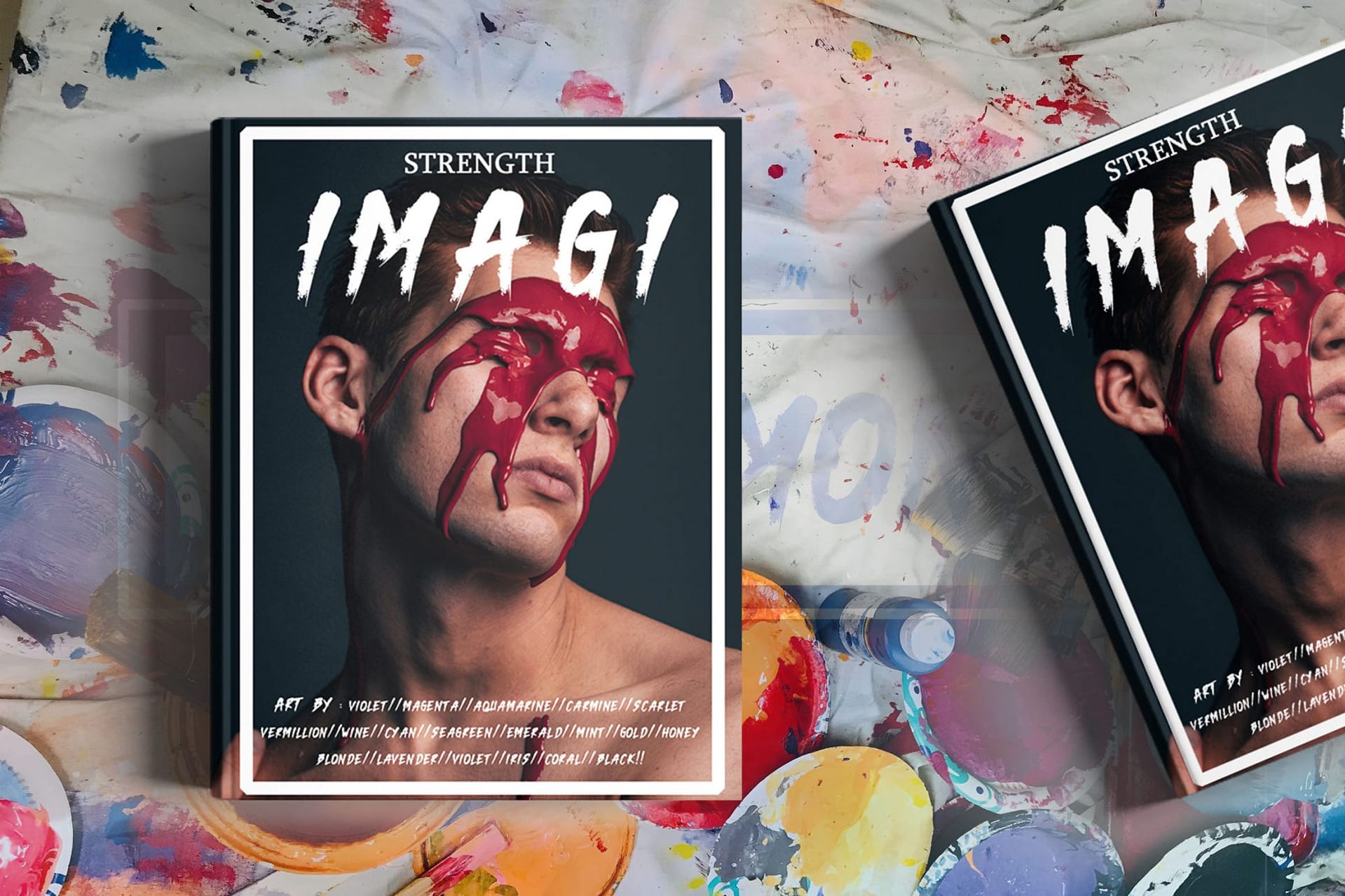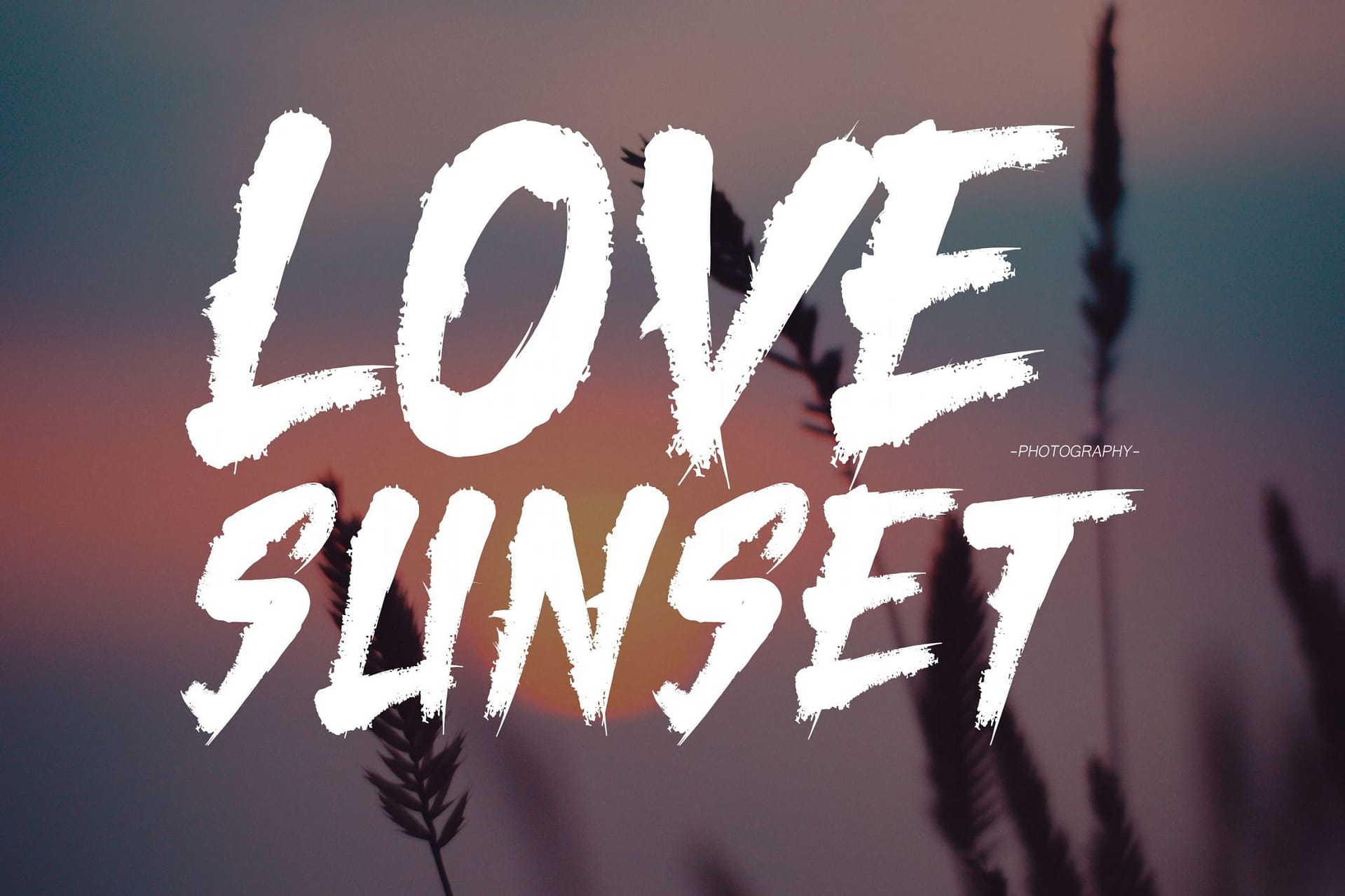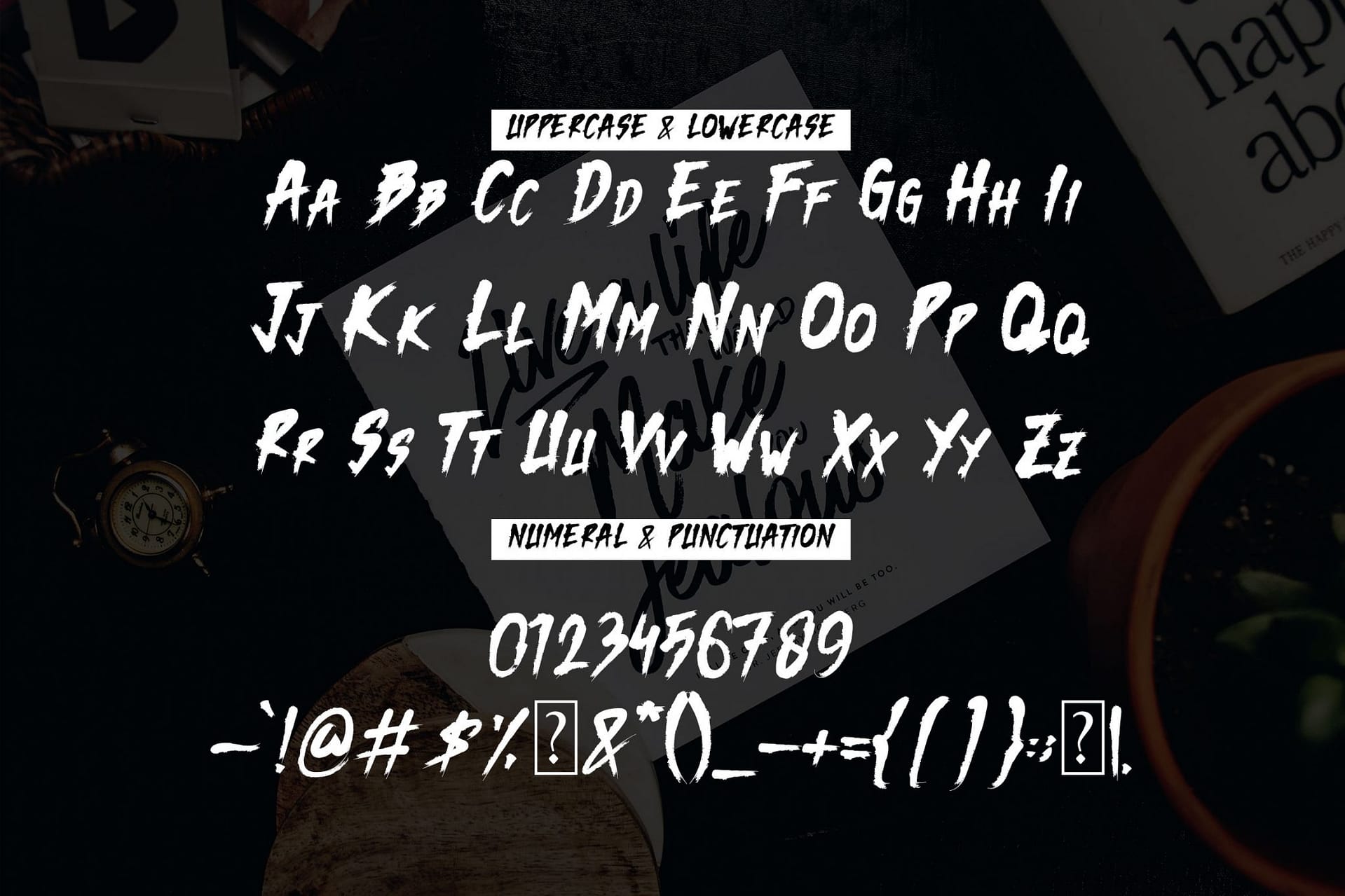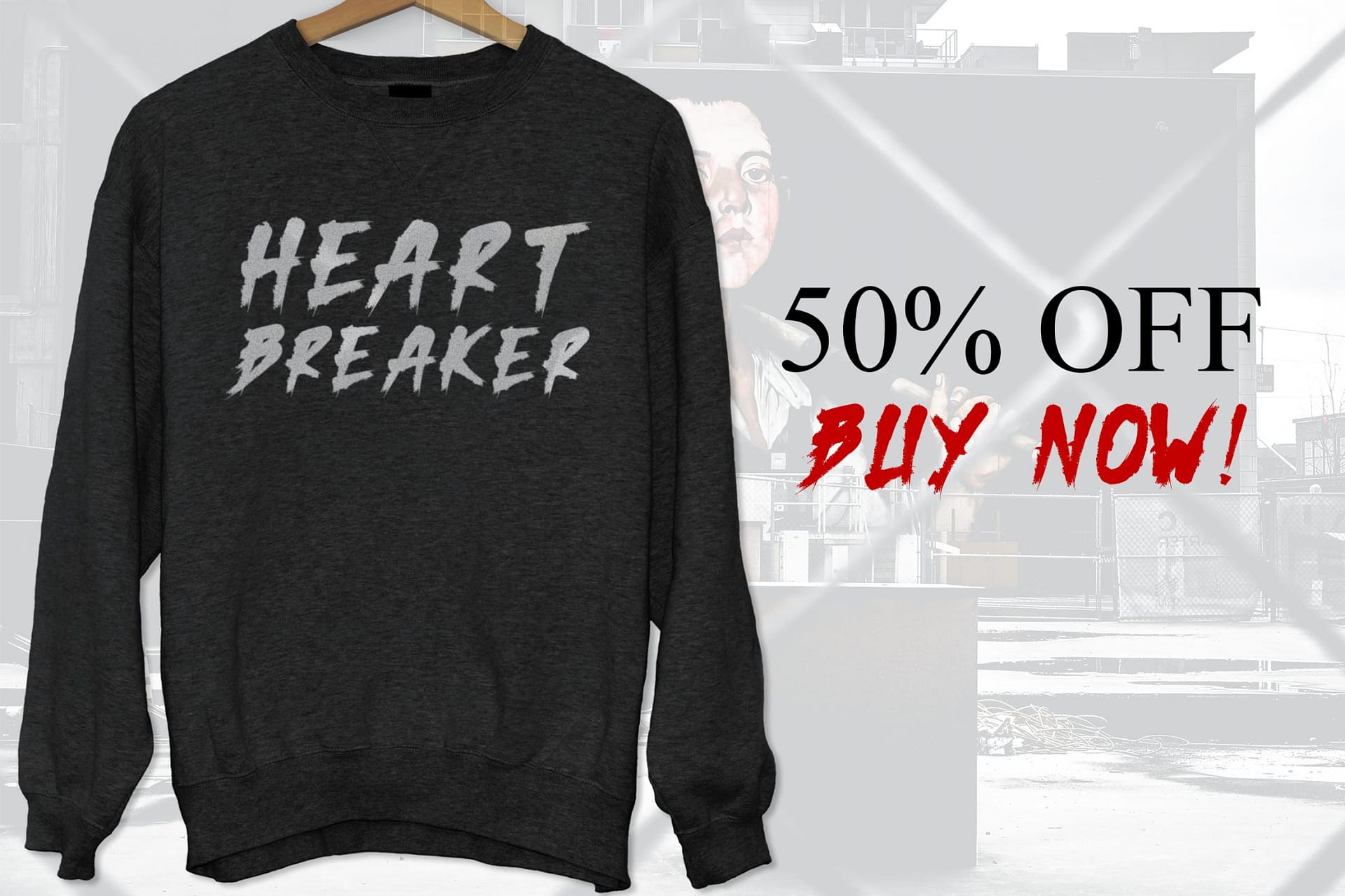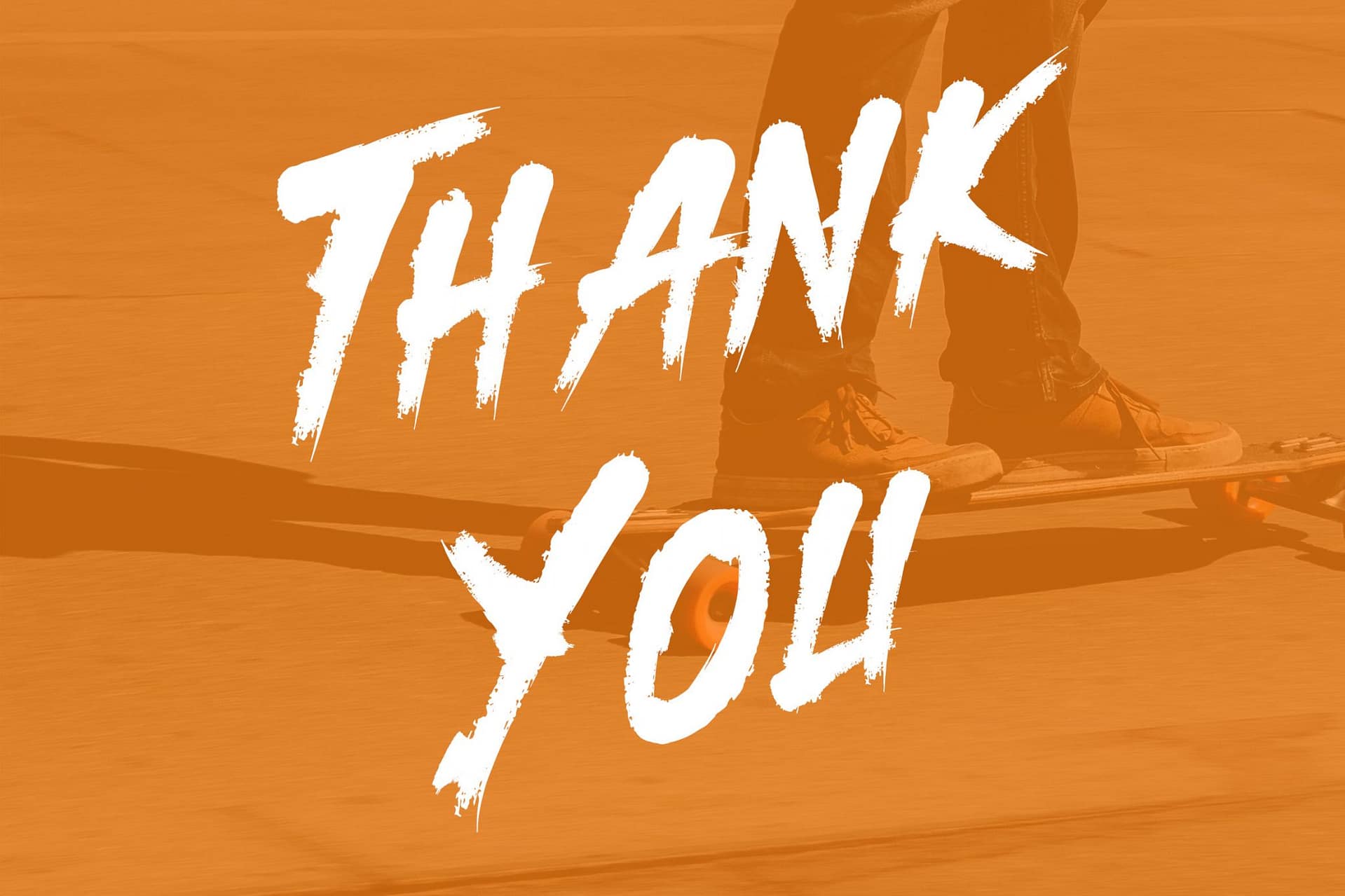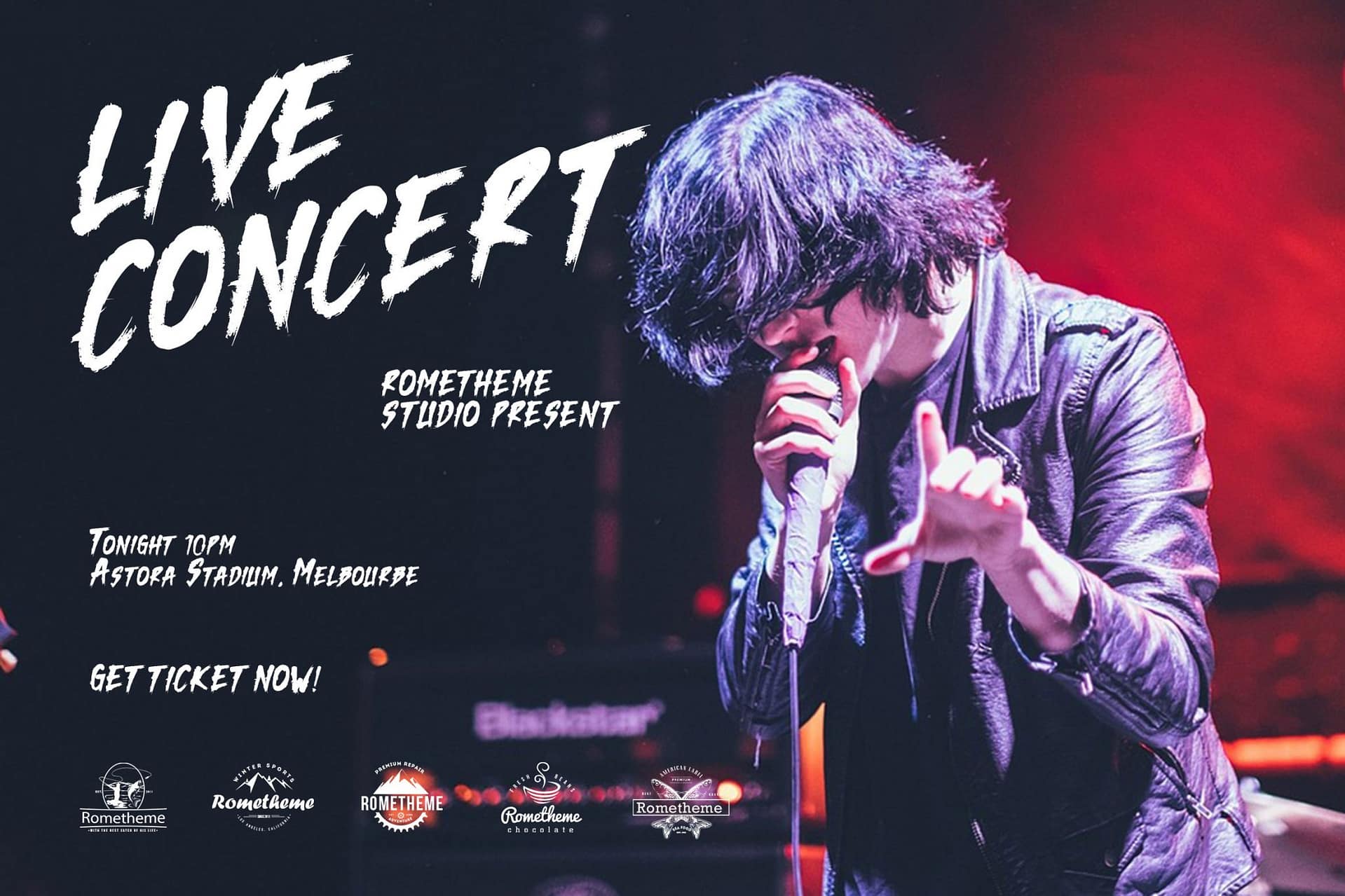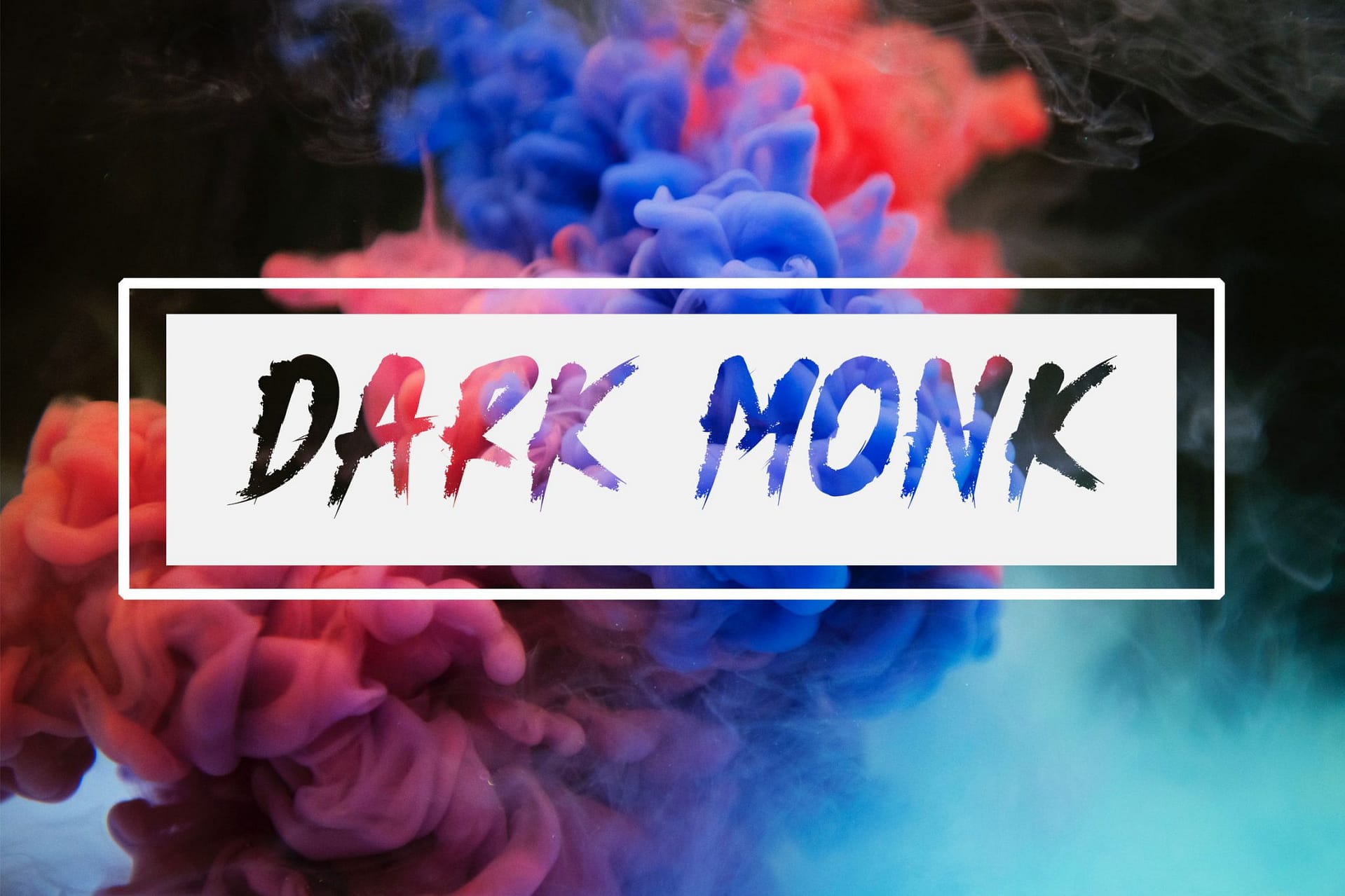
Dark Monk is a modern, hand-drawn typeface. It has a elegant, classy look. Itโs a great font for fashion, apparel projects, signature, album cover, logo, branding, magazine, social media, & advertisements, but also works great for other projects.
- Basic Latin A-Z and a-z
- Numbers
- Symbols